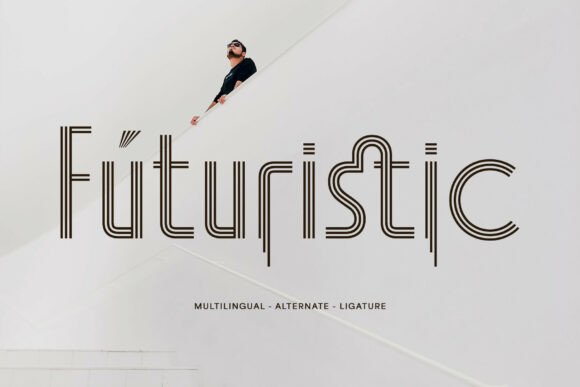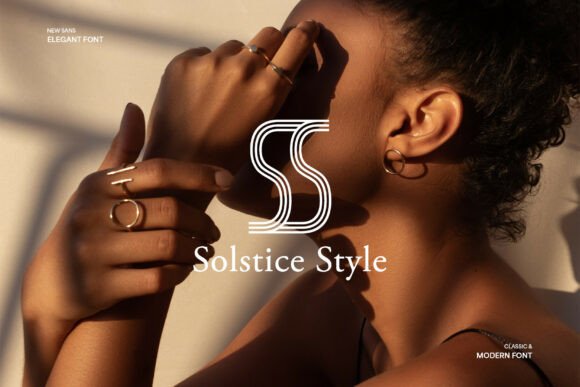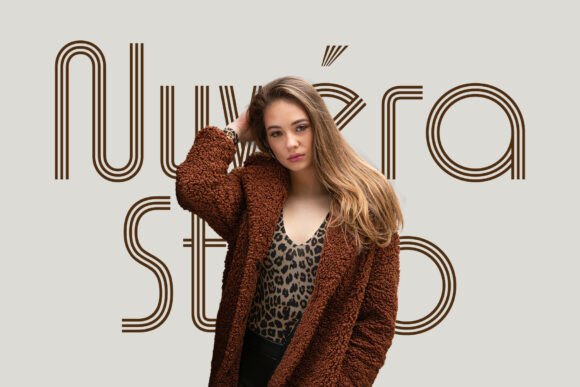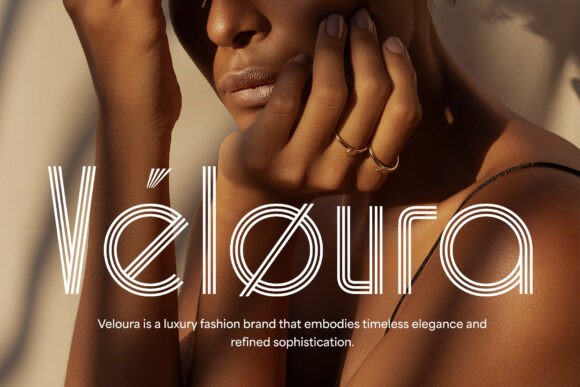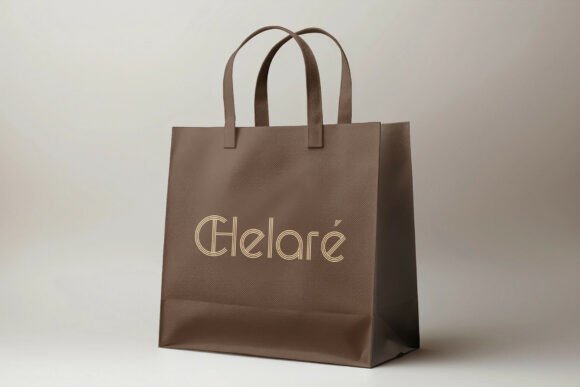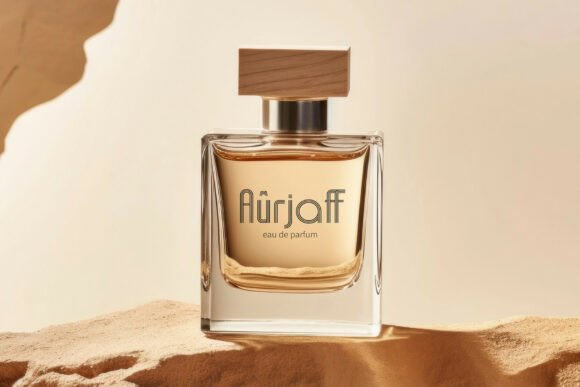
Introduction to Moona Font
Imagine yourself lost in a futuristic cityscape, neon lights reflecting off sleek skyscrapers as you search for the perfect font to elevate your next creative project. The thrill of discovery, the rush of inspiration – it’s a moment we’ve all experienced as designers. And what if I told you that this moment just got a whole lot brighter with the introduction of Moona Font?
Moona Font is an exclusive multi-line sans-serif that captures the electric energy of retro-futurism, boasting a sophisticated triple-inline structure that creates a sense of vibration, depth, and architectural grandeur. With its interlocking circular motifs and steady vertical rhythm, this high-definition font is sure to leave a lasting impression. Whether you’re working on a premium lifestyle branding project or designing cinematic posters, Moona Font is the ultimate design resource to take your work to the next level.
Key Features of Moona Font
- High-quality design with a transparent background, perfect for creative projects and design resources.
- Includes a range of characters and glyphs, with over 1000 characters, to support diverse design needs.
- Designed with a modern aesthetic, featuring clean lines and elegant typography, ideal for branding and marketing materials.
Honest Review: Moona Font
- Beautiful, elegant design: The Moona Font boasts a stunning aesthetic that’s perfect for creating visually appealing designs.
- Transparent background: This feature allows for seamless integration with other design elements, giving you more flexibility in your creative project.
- High quality: The font is well-designed and renders beautifully, even at larger sizes.
- Limited character set: The Moona Font has a relatively small character set compared to other fonts, which may limit its use in certain situations.
- No bold or italic variants: While the font is beautiful, it would be great to have bold and italic variants available for added versatility.
Overall, the Moona Font is a solid choice for designers looking for a high-quality, elegant font to enhance their creative projects. While it may have some limitations, its beauty and flexibility make it a valuable design resource.
Moona Font is ideal for creating eye-catching headings, titles, and subtitles for your design project. It’s also great for adding a touch of elegance to your presentation or document.